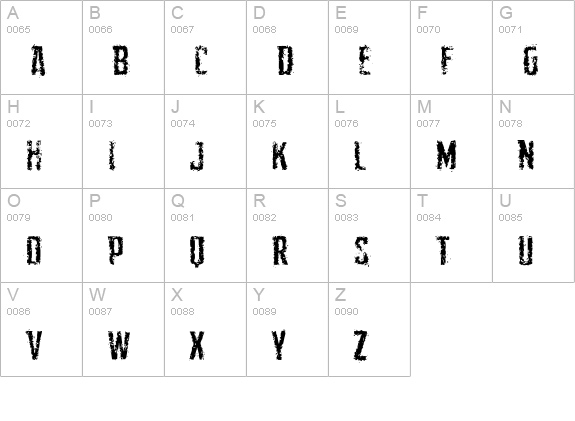
Demon Sker is a captivating and mesmerizing font that will add an edgy and mysterious touch to your designs. This unique typeface is perfect for those looking to make a bold statement and leave a lasting impression. With its sharp and angular letterforms, Demon Sker exudes a sense of darkness and intrigue, making it the ideal choice for projects that require a touch of the supernatural. What sets Demon Sker apart is not only its striking aesthetics but also the fact that it is available for free. That's right, this extraordinary font can be freely downloaded at FontsMarket.com. Whether you're a professional designer, a hobbyist, or simply someone who loves experimenting with typography, Demon Sker offers you the opportunity to elevate your creations without breaking the bank. With its wide range of characters and extensive language support, Demon Sker can be used in various design projects, including logos, posters, album covers, apparel, and more. Its versatility allows you to unleash your creativity and explore different styles and themes, from gothic to fantasy to horror. Downloading Demon Sker from FontsMarket.com is quick and hassle-free. Once you have this font at your fingertips, you'll be able to unleash its power and bring your visions to life. So why wait? Embrace the darkness and let Demon Sker be your guide as you embark on a typographic journey like no other.